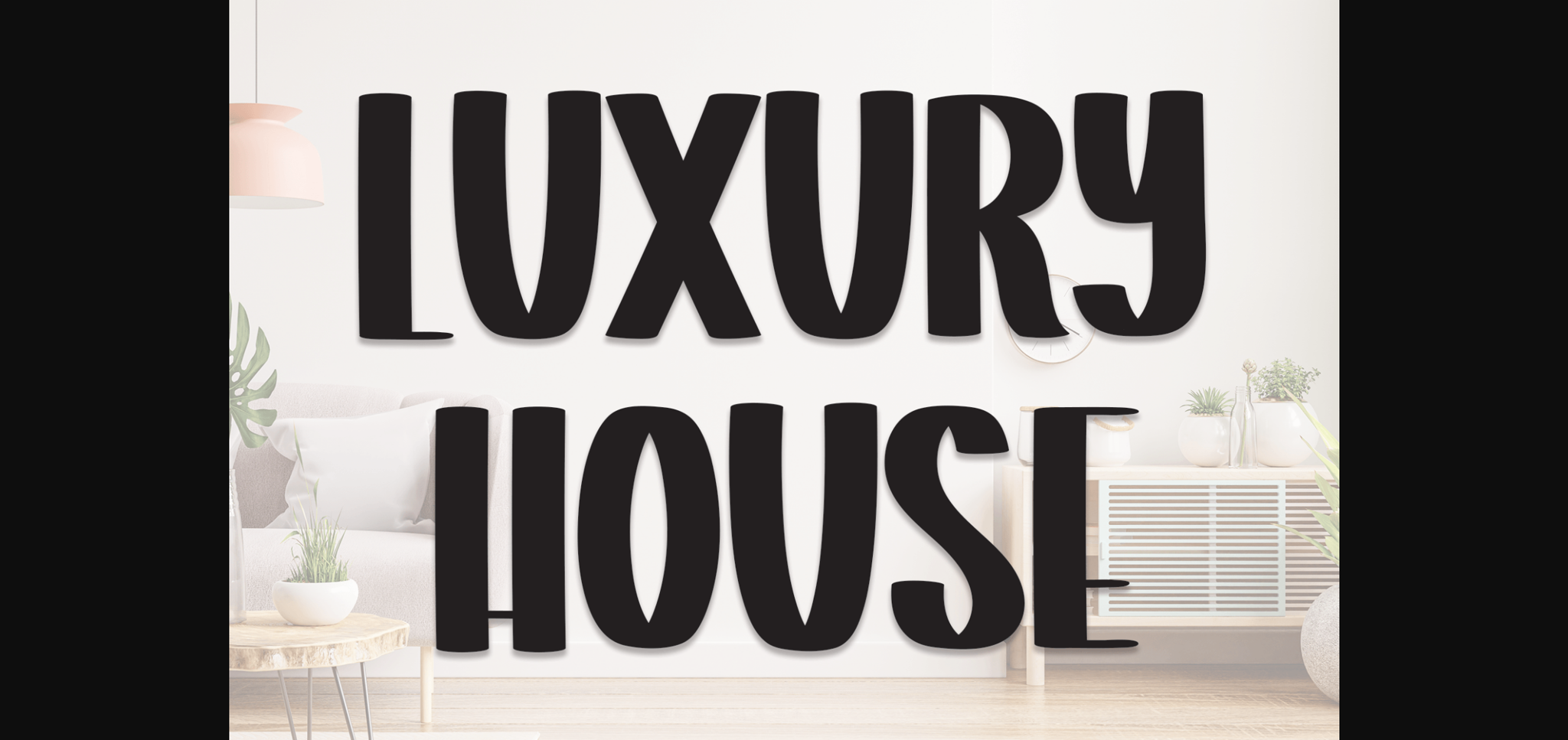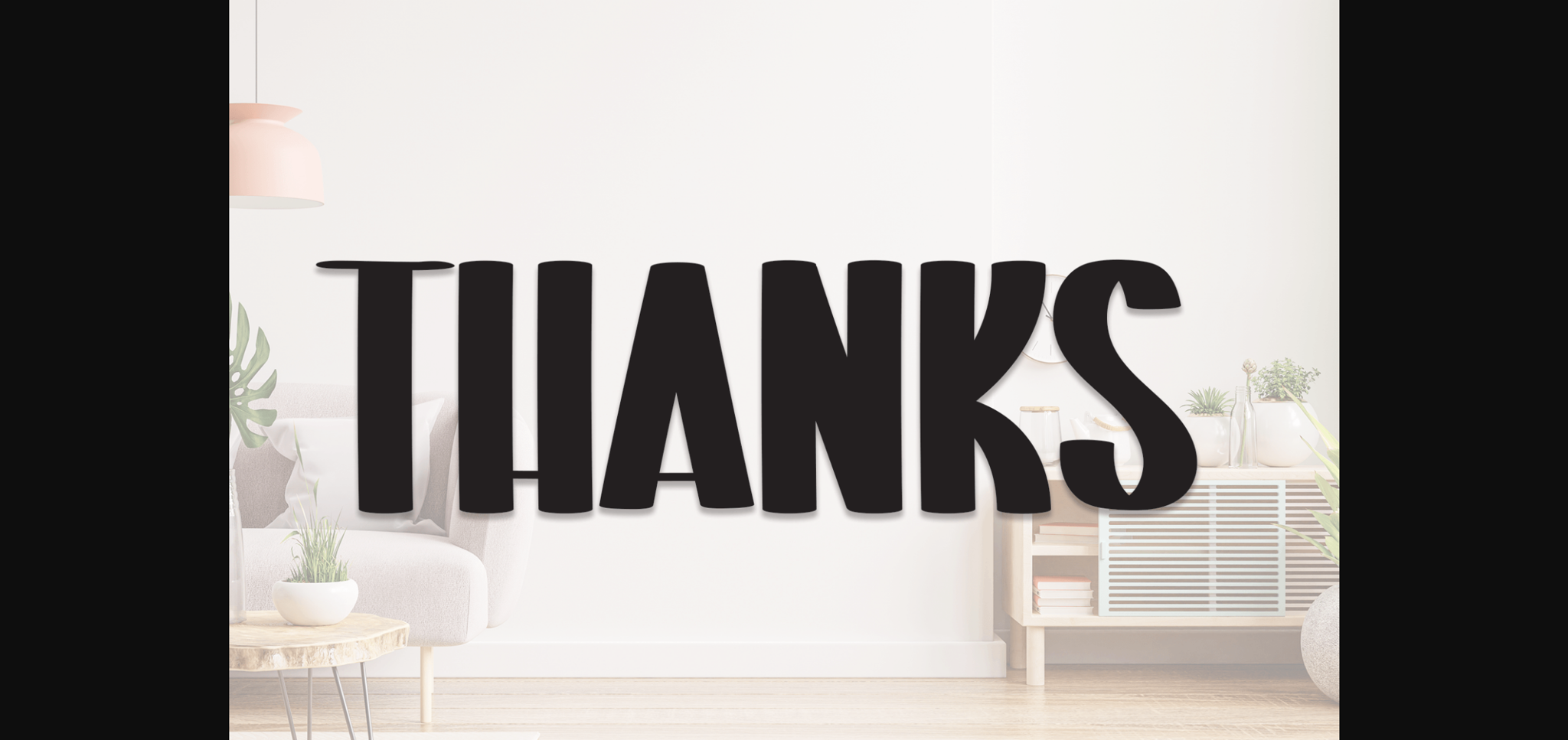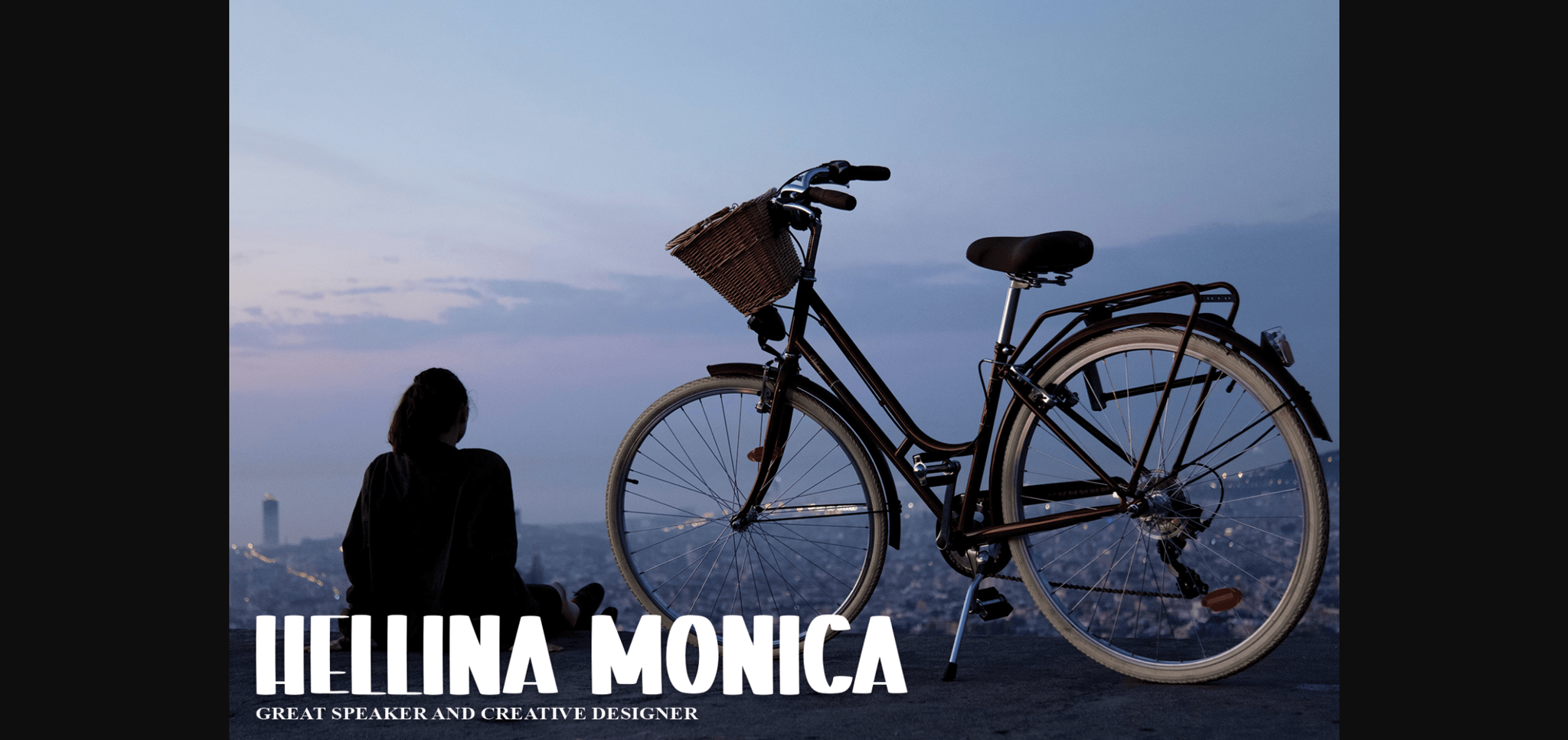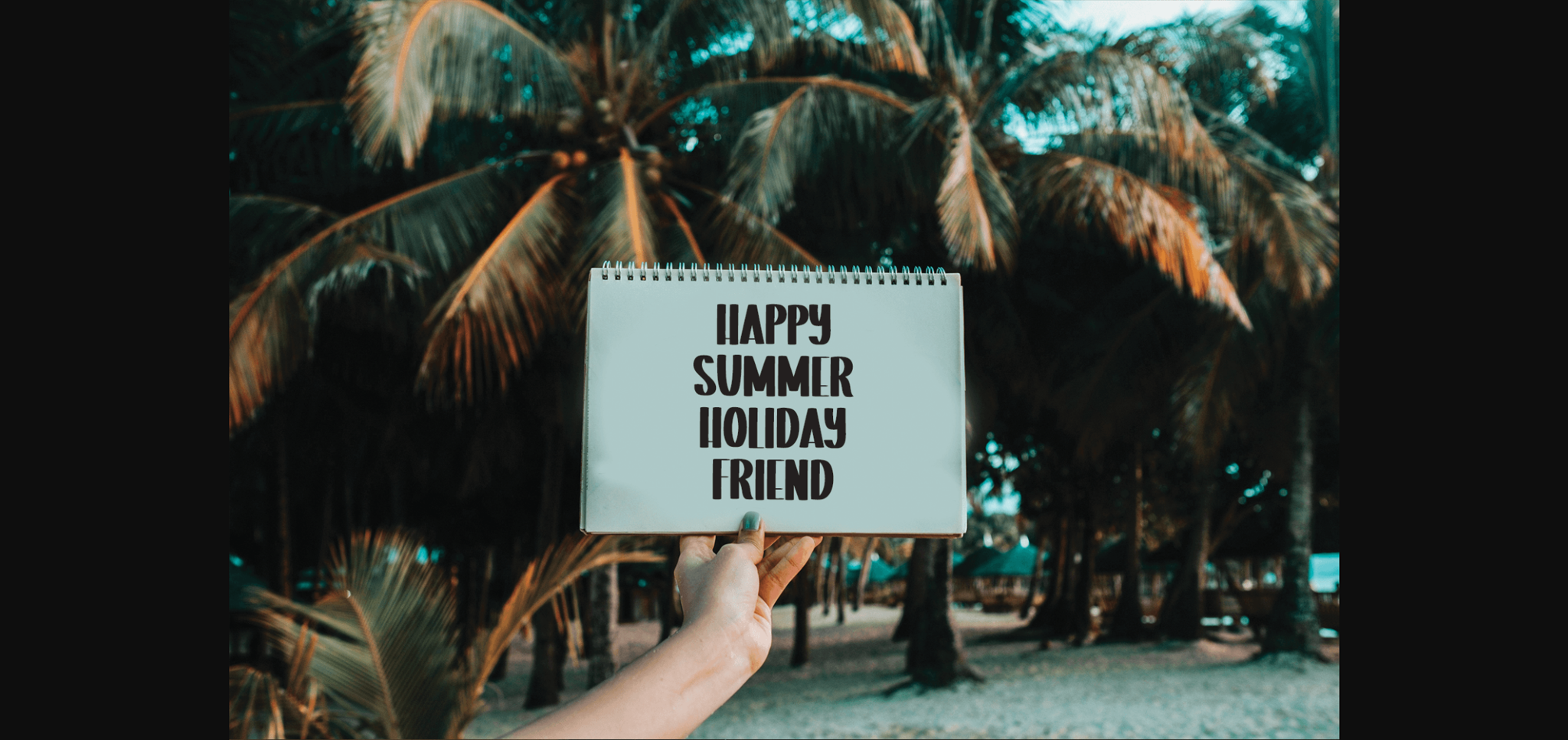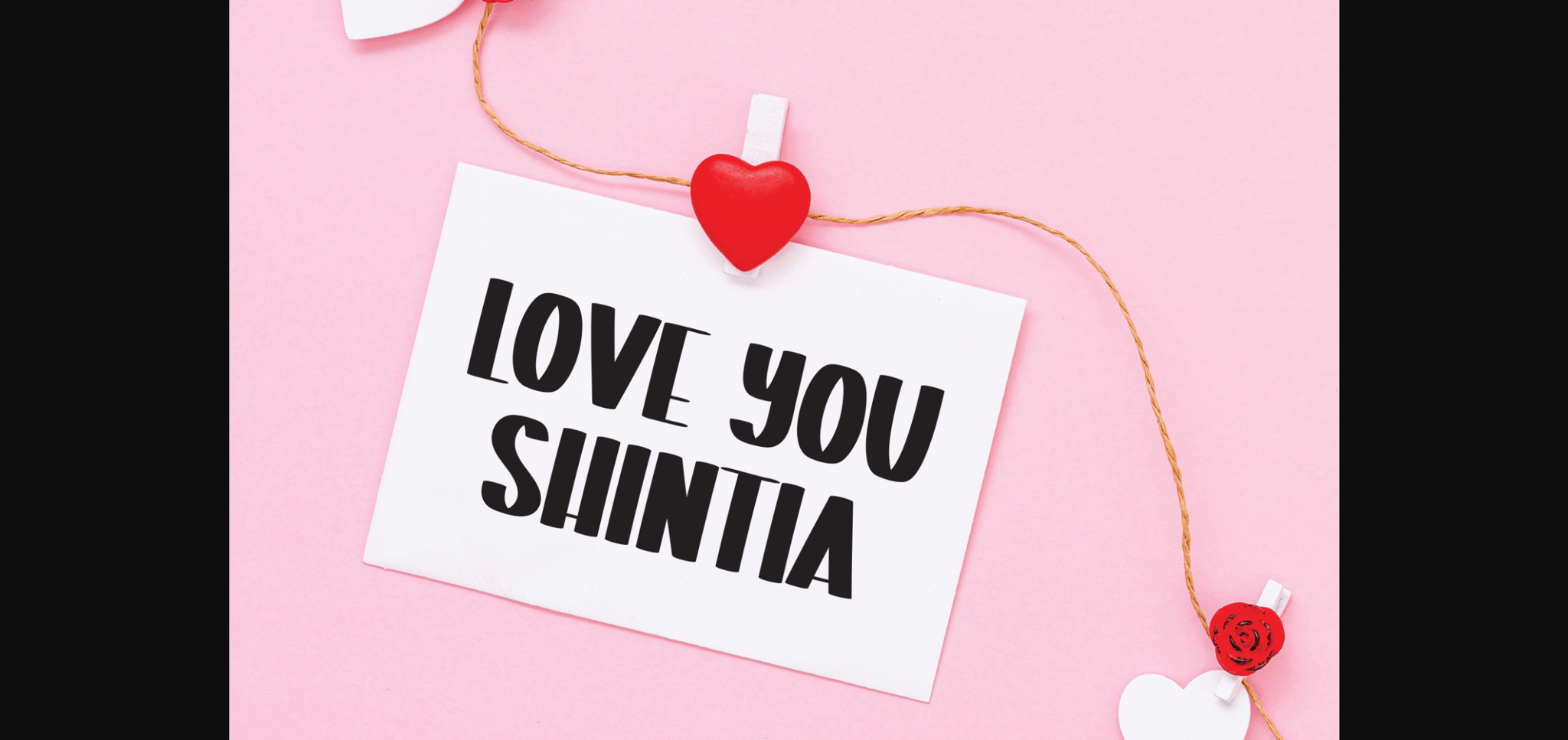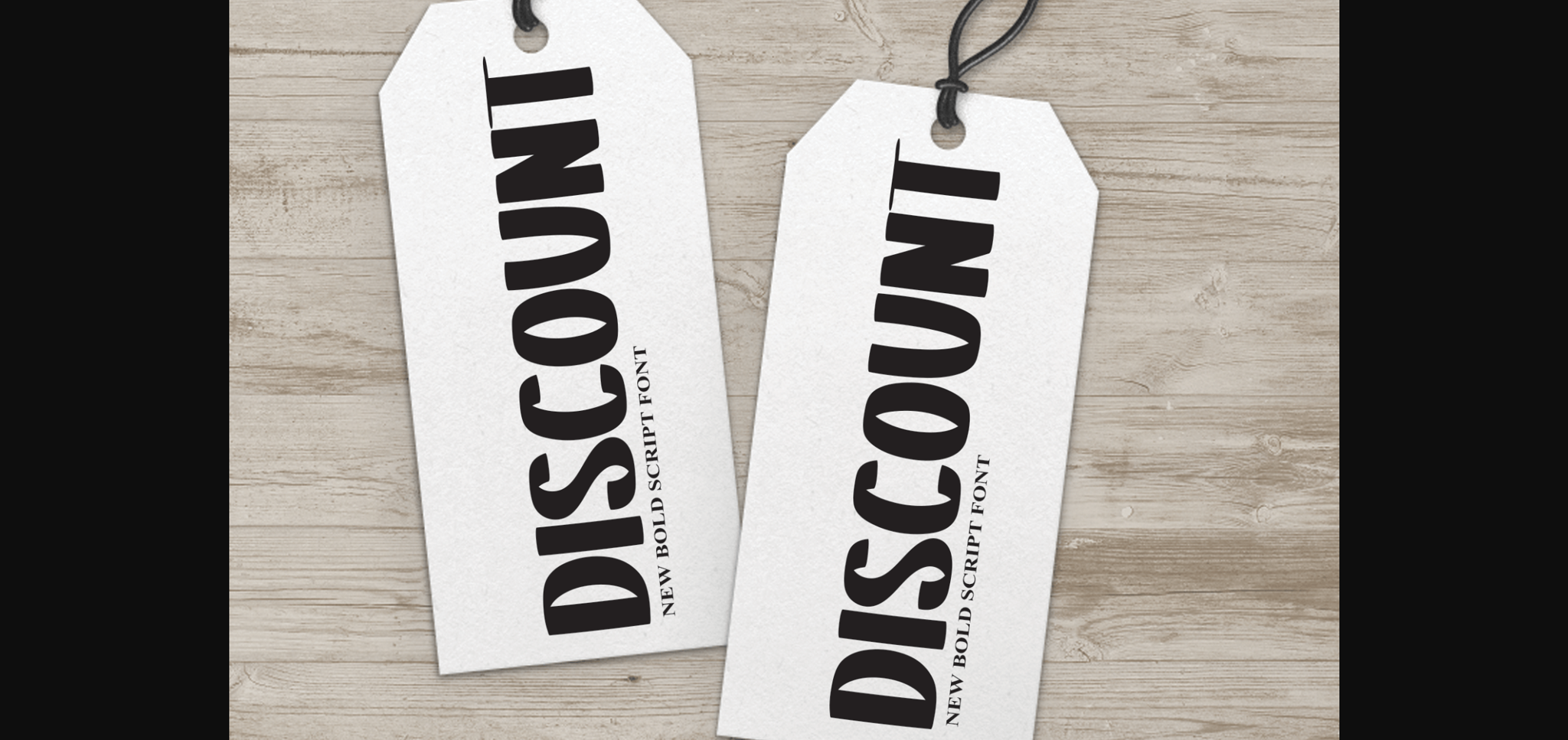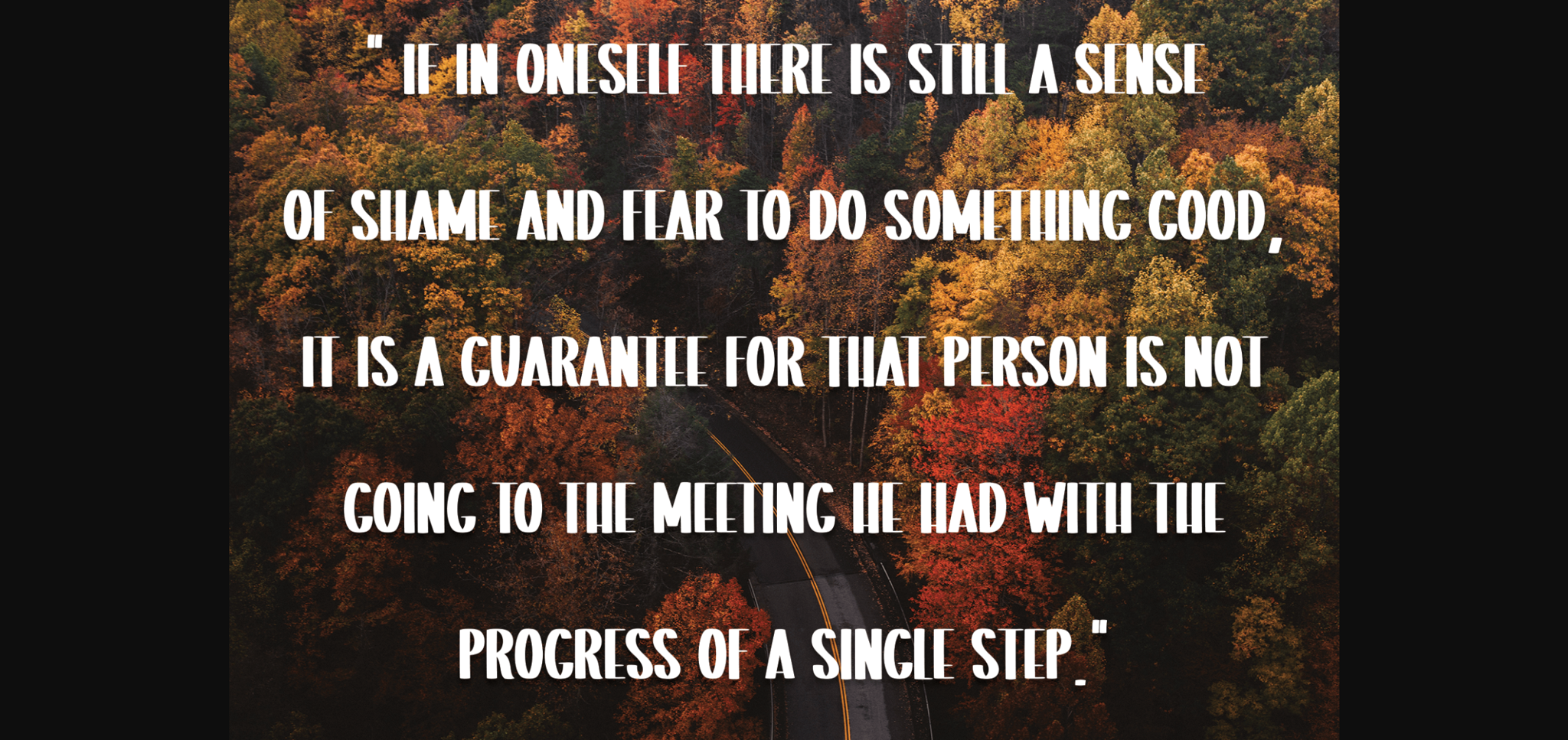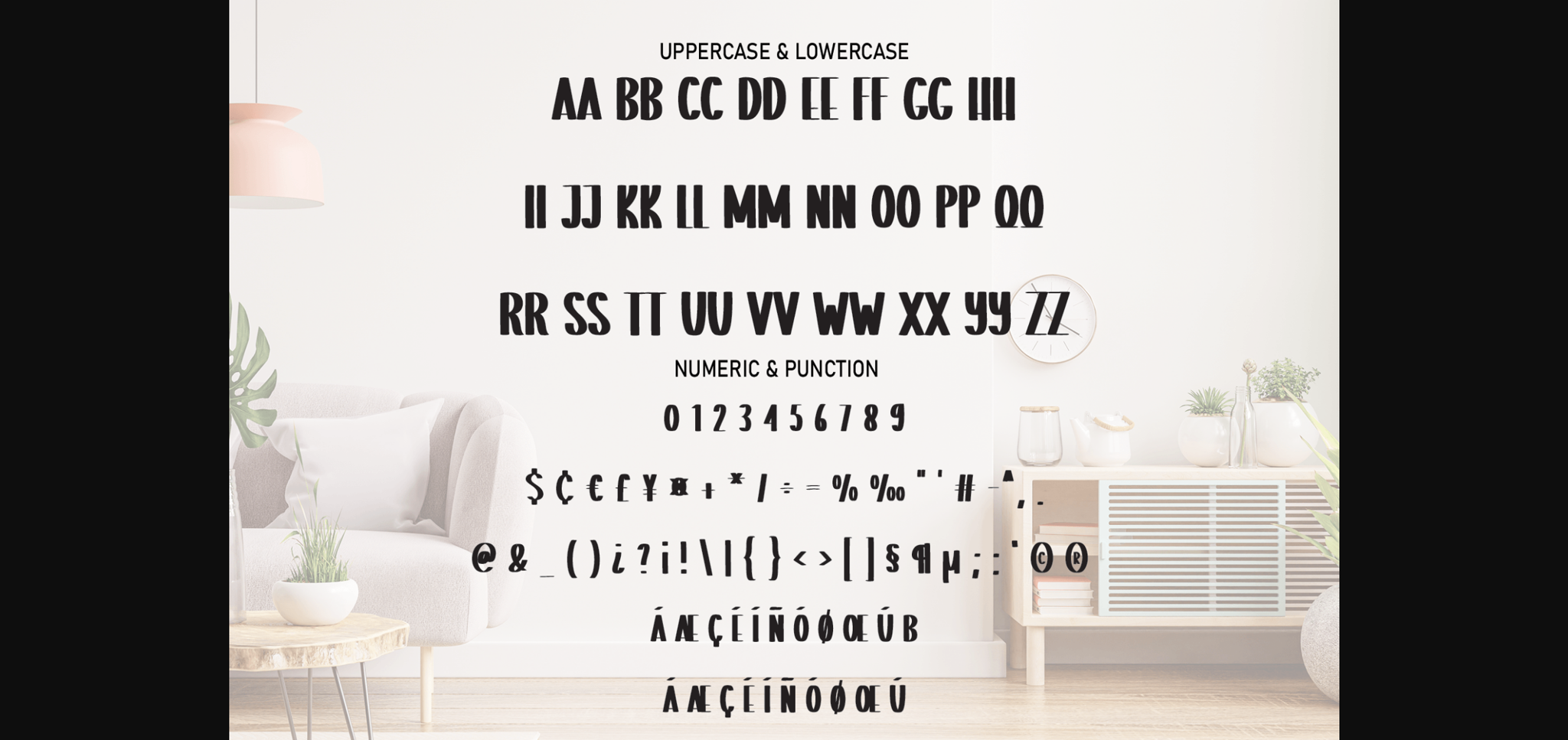
HomeSans Serif FontsLuxury House Font Sans Serif Fonts Luxury House Font FacebookXPinterestWhatsApp 1 of 10 ... Luxury House Font Poster 2... Luxury House Font Poster 3... Luxury House Font Poster 4... Luxury House Font Poster 5... Luxury House Font Poster 6... Luxury House Font Poster 7... Luxury House Font Poster 8... Luxury House Font Poster 9... Luxury House Font Poster 10... About Luxury House Font Luxury House is a bold and sleek handwritten sans serif font. Add it to your creative projects and you will be amazed by the outcome generated! DOWNLOAD NOW People also explored Bianca Romantic Font Font Travel Soulmates Duo Font Valentine Font Suryakencana Font Eastilo Font Feathery Font Ambigane Font Bizzack Font Cellestial Font 285 0 TagsLuxury House Font Previous articlePodiefa FontNext articleWhite Morning Font LEAVE A REPLY Cancel reply Comment: Please enter your comment! Name:* Please enter your name here Email:* You have entered an incorrect email address! Please enter your email address here Website: Save my name, email, and website in this browser for the next time I comment. Personal Use Free Squariess Personal Use Free Read more about this font Ginóra Personal Use Free Read more about this font Lynoselt Personal Use Free Read more about this font Alligator Font Personal Use Free Read more about this font BLOG Top 10 Handwritten Fonts That Elevate Your Designs Top 10 Handwritten Fonts That Will Elevate Your Designs Handwritten fonts bring a warm, personal touch to every creative project. Whether you're designing logos, invitations,... Modern Sans-Serif Fonts That Brands Love in 2025 Best Fonts for YouTube Videos: Make Your Thumbnails Stand Out 5 Fonts That Will Dominate Design Trends in 2026